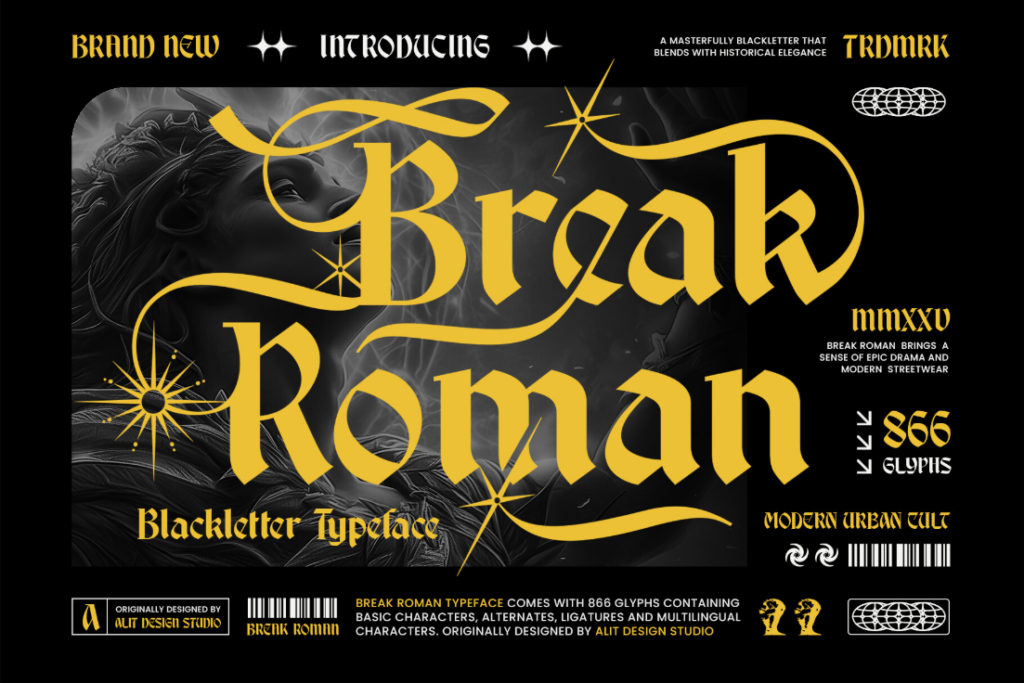
This collection highlights classic traditional blackletter fonts with ornate gothic style. It explores historical forms and elaborate strokes. The theme ties medieval calligraphy to contemporary design uses. It is for designers, typographers, calligraphers, artists, and heritage enthusiasts. It suits both professionals and curious hobbyists.
Use these fonts for book covers, editorial pages, branding with vintage character, signage, posters, and certificates. They fit tattoo layouts, album art, and theatrical programs. Samples show weights, ligatures, and decorative alternates. Pairing suggestions help balance readability and ornament. The guide aims to clarify choice and creative fit. Notes on legibility and historical context are provided.
Old English Font
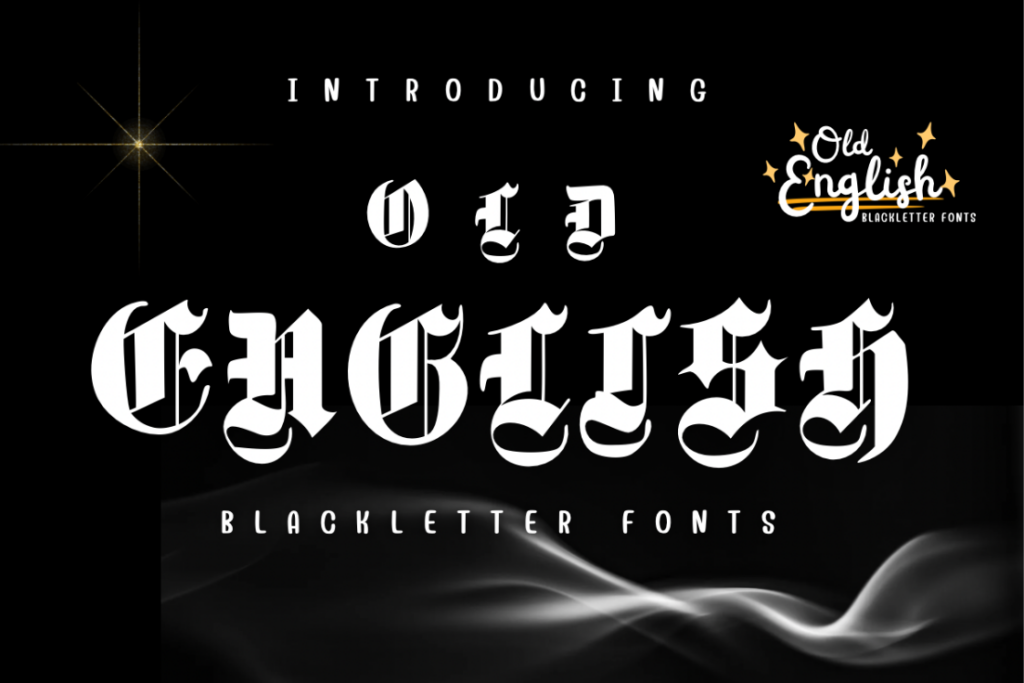
A dramatic blackletter with ornate Gothic strokes that recall traditional calligraphy and medieval manuscripts. Use it for vintage posters, festival flyers, or book covers to add historical weight and bold character. Try it in logos, packaging labels, and tattoo mockups for a striking, formal look. Letters feature sharp terminals, thick hairlines, and decorative flourishes that read well at larger sizes. Pair it with simple sans serifs for contrast, or layer with textures for a weathered, archival feel.
Victoriana Font
Immerse projects in Victorian elegance with ornate serifs and graceful curves that feel handcrafted. Ideal for book covers, menus, certificates, and editorial headers that need historic gravitas. Use it on wedding invitations, signage, packaging, and craft labels to add period charm. Pairs well with textured papers, metallic foils, or dark backgrounds for dramatic contrast. Fine-tune letter spacing for legibility, and combine with simple modern sans for balance.
Highborne Font
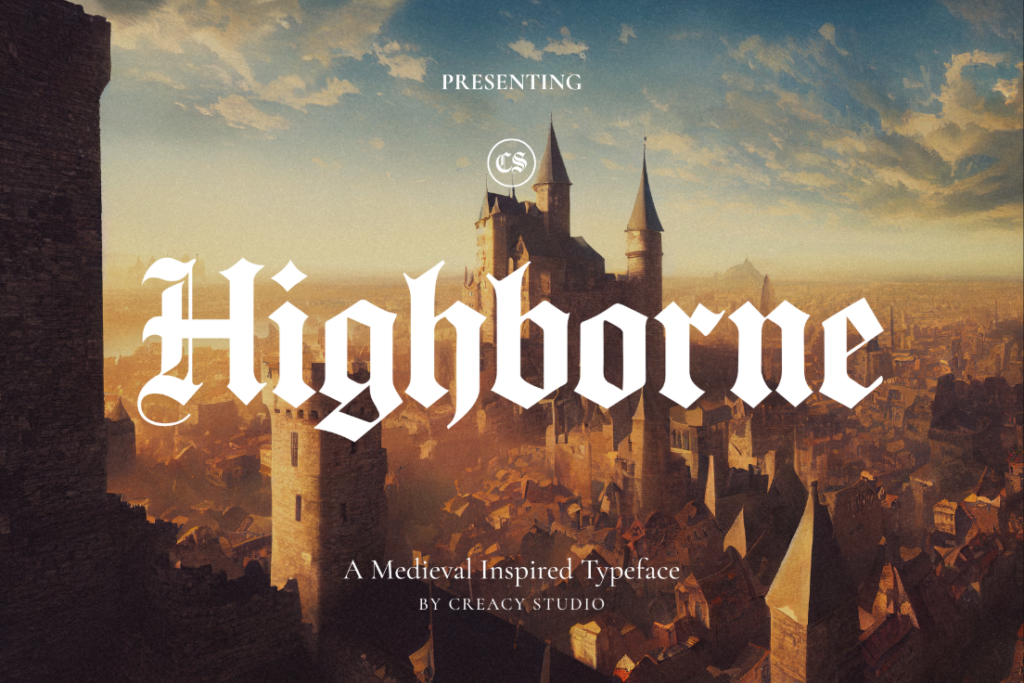
A gothic blackletter with ornate contours brings medieval weight to modern designs and cinematic quotes. Use it for metal and hip‑hop album covers, dark fantasy posters, or bold book and title layouts. It includes full case alphabets, numerals, punctuation, multilingual support, and stylistic alternates for variety. Apply it to apparel graphics, event branding, ornate logos, and dramatic posters for bold, atmospheric compositions. The style suits heritage identities and contemporary projects that need brooding, readable, decorative letterforms.
Cambridge Font
An elegant blackletter type with ornate gothic details for classic design projects and period signage. Use it for book covers, signage, branding, tattoos, and editorial headings or vintage labels. It pairs well with minimalist layouts and rich textures for dramatic contrast and metallic foils. Try it in invitations, posters, album art, or craft packaging to add historic flair and artisanal food labels. Alternates and ligatures boost authenticity and make letterforms flow naturally with stylistic sets.
Old Victorian Vol 2 Font
Bring Victorian elegance to book covers, posters, and certificates with ornate blackletter charm. Use decorative capitals for invitations, branding headers, or event signage that needs historic flair. Mix with textured paper or dark backgrounds for dramatic contrast and readable vintage appeal. Works well in logos, editorial layouts, and artisanal packaging to suggest craftsmanship and lineage. Includes ornate swashes and stylistic alternates for creative accents and period-accurate typography.
Old Vintage Victorian Font
A Victorian-style blackletter with ornate Gothic details brings historic flair to modern designs. Use it for invitations, book covers, signage, and packaging that need classic gravitas. Pair with textured paper, embossed foil, or minimalist layouts to balance ornament and clarity. It works well in headers, monograms, logos, and posters that demand a solemn, elegant mood. Designers also use it for theatrical playbills, certificates, menus, and heritage branding projects.
Velthoven Black Font
A bold modern Blackletter that blends Fraktur echoes with sharp geometric outlines. High stroke contrast and angular terminals give designs a striking, authoritative edge. Use it for music branding, high fashion editorials, posters, and tattoo or streetwear logos. It works well on book covers, labels, product wrap, and Goth-inspired graphics needing legible flair. Details like soft rounded spurs balance the contrast, keeping text readable at smaller sizes.
Black Crown Font
A bold blackletter font with sharp edges, strong contrast, and classic letterforms for dramatic visuals. Use it for logos, titles, signage, and album covers that require a royal or historical mood. It excels on posters, tattoos, packaging, and vintage branding with an authentic old-English atmosphere. Pair it with clean layouts and subtle textures to balance ornate, expressive glyph shapes. Ideal for theatrical designs, editorial spreads, and luxury projects that need powerful typographic presence.
Bethinae Font
This script blends tattoo-style flair with bold blackletter forms for a glamorous and mysterious edge. Use Regular for logos, signage, and editorial headlines that need weight and personality. Add Ornaments for luxury monograms, tattoo flash, club insignias, or premium apparel badges. Details like flourishes and stylish swirls create a refined, gritty character with sharp terminals. Use it in barbershops, tattoo studios, automotive workshops, and bold streetwear identities.
Conclusion
These classic traditional blackletter fonts with ornate gothic style bring strong character to headlines, logos, and posters. They balance heritage, rhythm, and dramatic flourish. Each letter feels handcrafted and rich in detail. Use them for editorial spreads, event invites, signage, and craft labels. Try mixing a bold blackletter with a clean sans for contrast. Experiment with texture, color, and spacing. Let the ornate strokes inspire mood, layout, and storytelling.